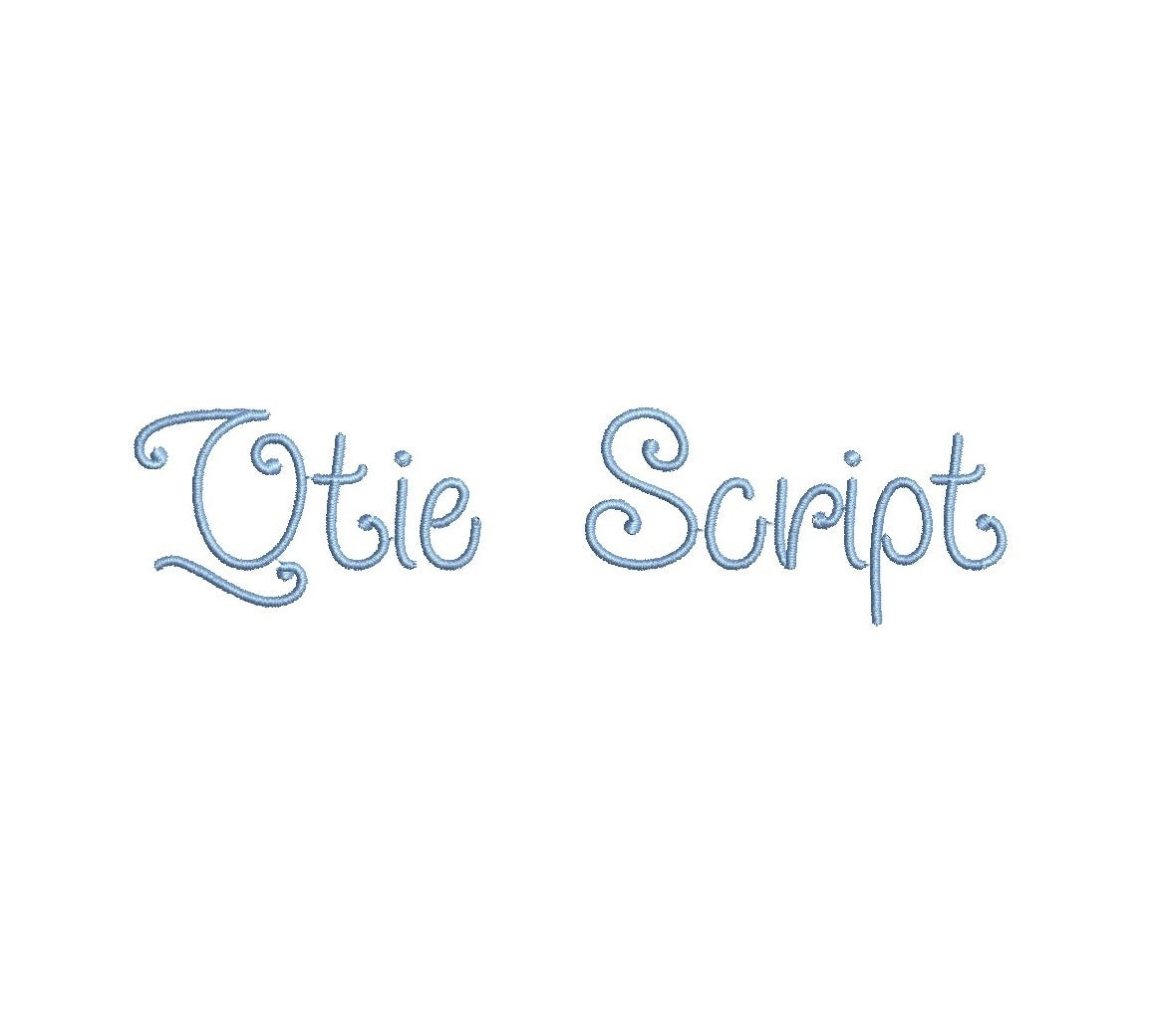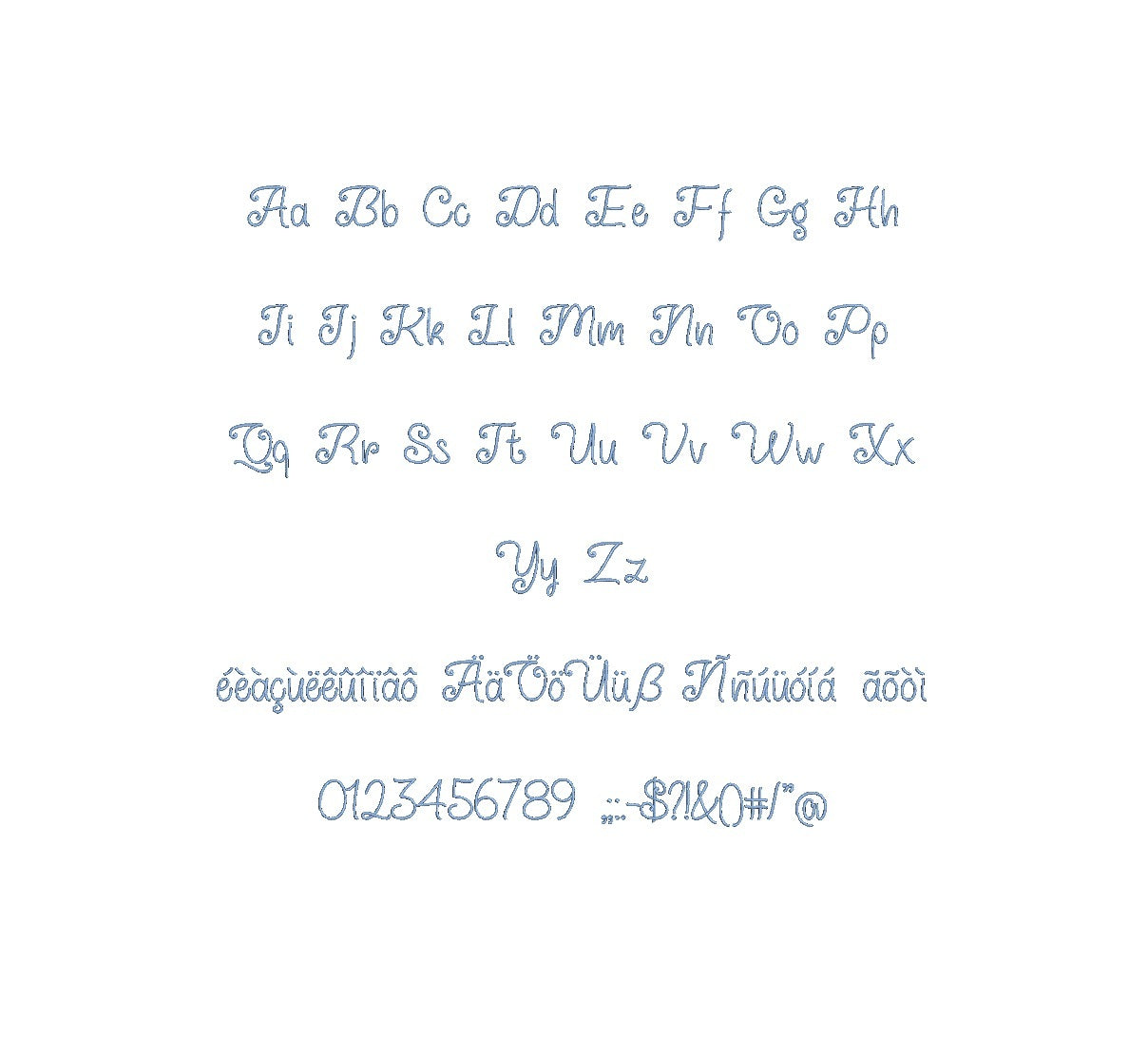
Introducing the captivating 'Qtie Script Regular ESA' font, designed for embroidery enthusiasts to add a touch of elegance to their creations. This versatile typeface boasts fluid, script-like strokes that infuse charm and personality into your designs. Seamlessly integrate it into your digitizing workflow with compatibility for Wilcom Studio e4.5.6 and Hatch 3 versions and above. Its flawless curves and precise lines ensure exceptional stitch quality, enhancing your embroidery projects. Ideal for monograms, quotes, and decorative elements, this ESA font brings your imagination to life. Elevate your embroidery game and embrace the artistry of 'Qtie Script Regular ESA' font today!"